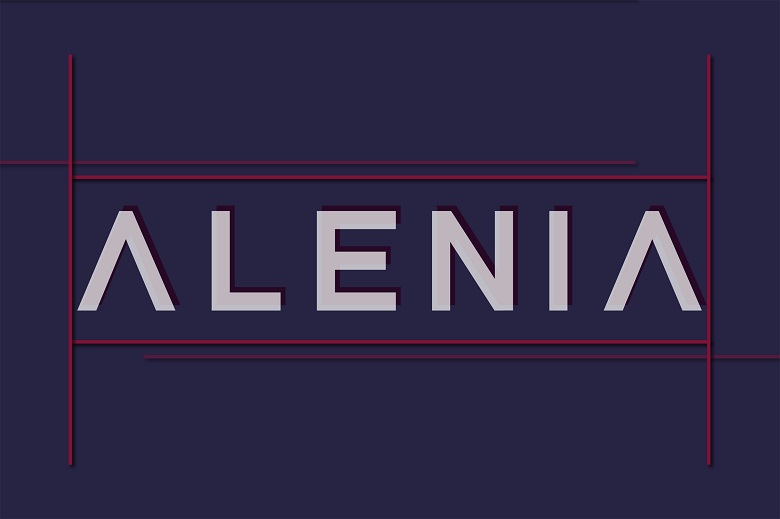
Alenia Font
Alenia is a new display type face with some weight of its own. It definitely will add the next level to any design project you are participating in. It is suitable for logos and branding, poster of travelling and tourism, magazine layout, beauty products and services, packaging of products, inspirational quotes or as a text over a picture.
Alenia Display Font